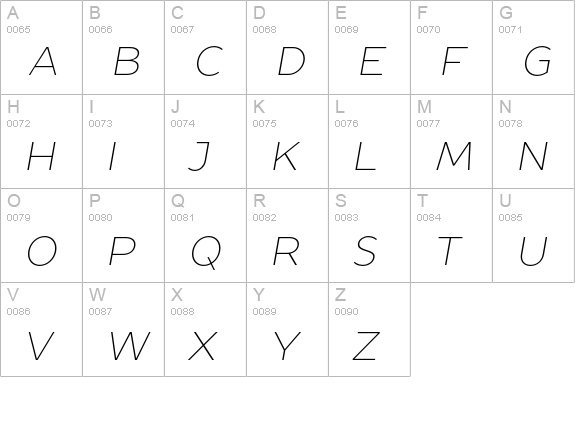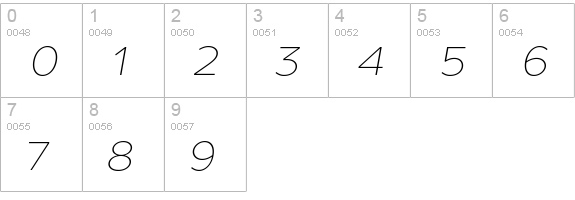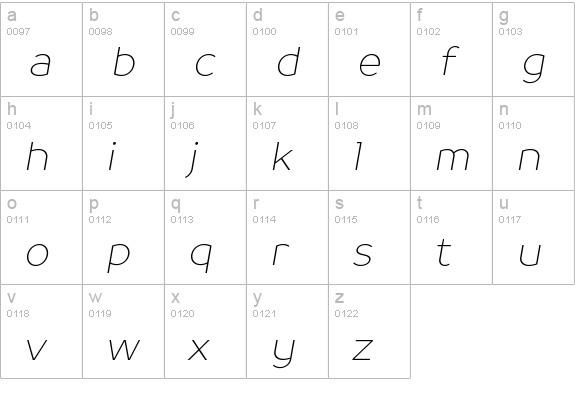
TT Prosto Sans Thin Italic Font Details
TT Prosto Sans Thin Italic is a delicate, low-contrast, italic variant in the TT typeface family \xE2\x80\x94 well suited to fashion editorial, minimal branding, and high-contrast display.
TT Prosto Sans Thin Italic is a sleek and modern typeface that exudes elegance and sophistication. Its thin strokes and italicized style give off a sense of refinement and professionalism, making it perfect for a wide range of design projects. Whether you're working on branding materials, editorial layouts, or web design, this font will add a touch of class to your work. One of the best things about TT Prosto Sans Thin Italic is that it is available for free download at FontsMarket.com. This means that you can easily access this high-quality font without breaking the bank. With its clean lines, subtle curves, and stylish italicized form, TT Prosto Sans Thin Italic is sure to elevate your designs and help you achieve a polished and sophisticated look.